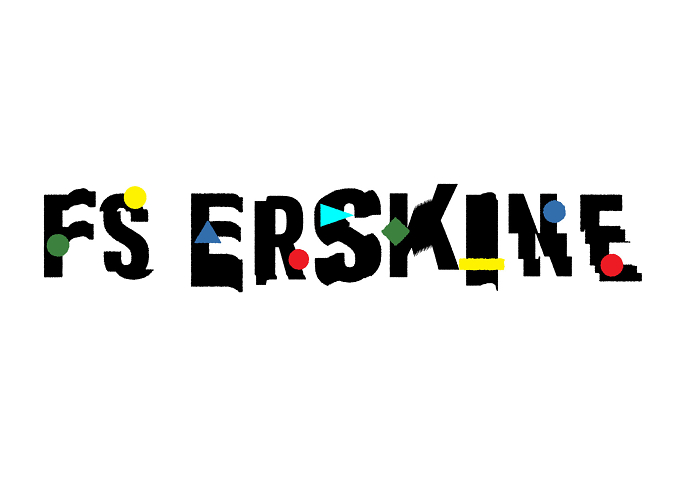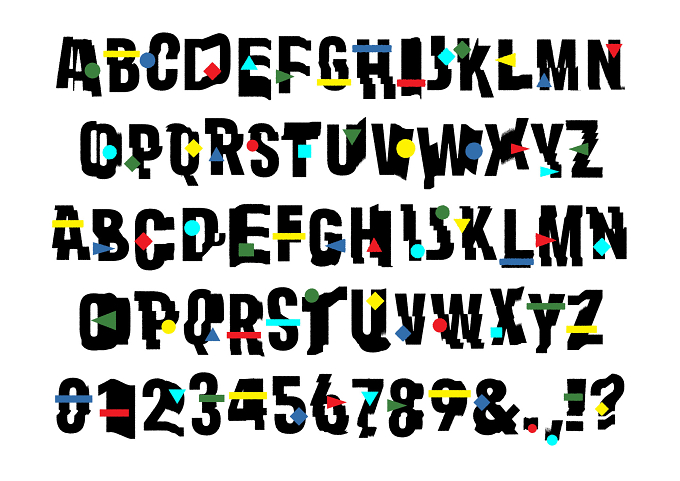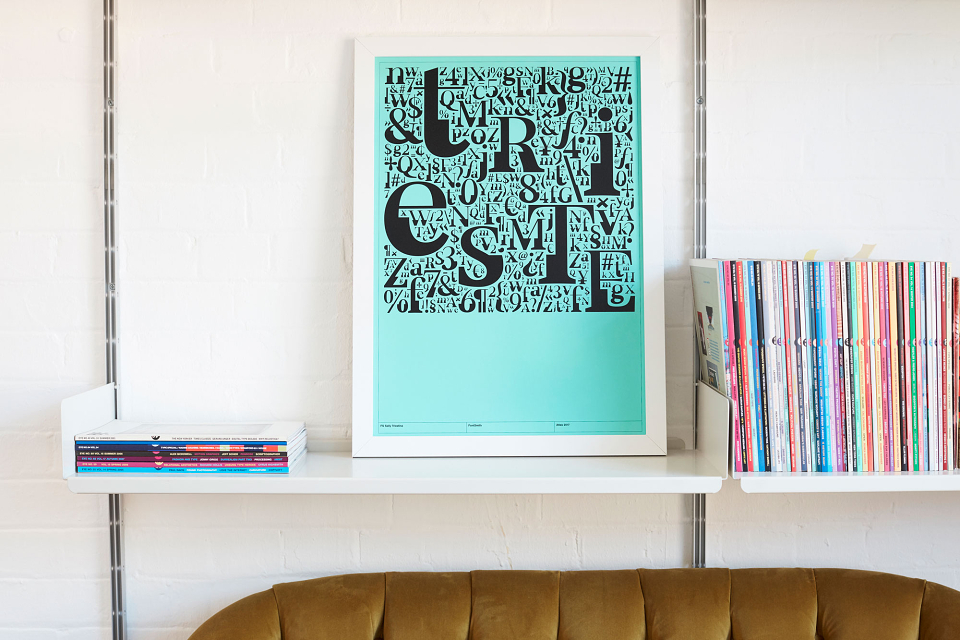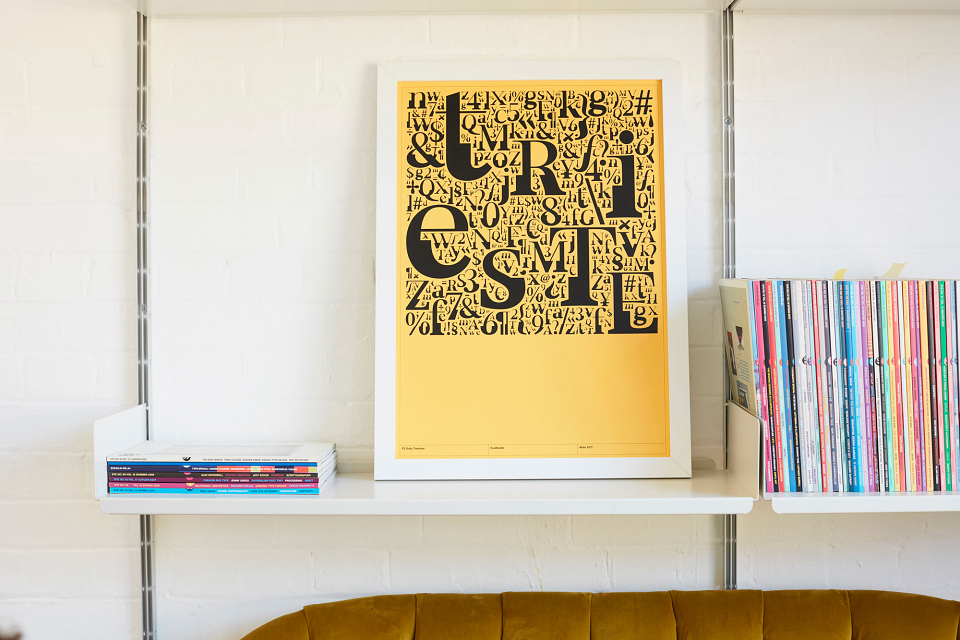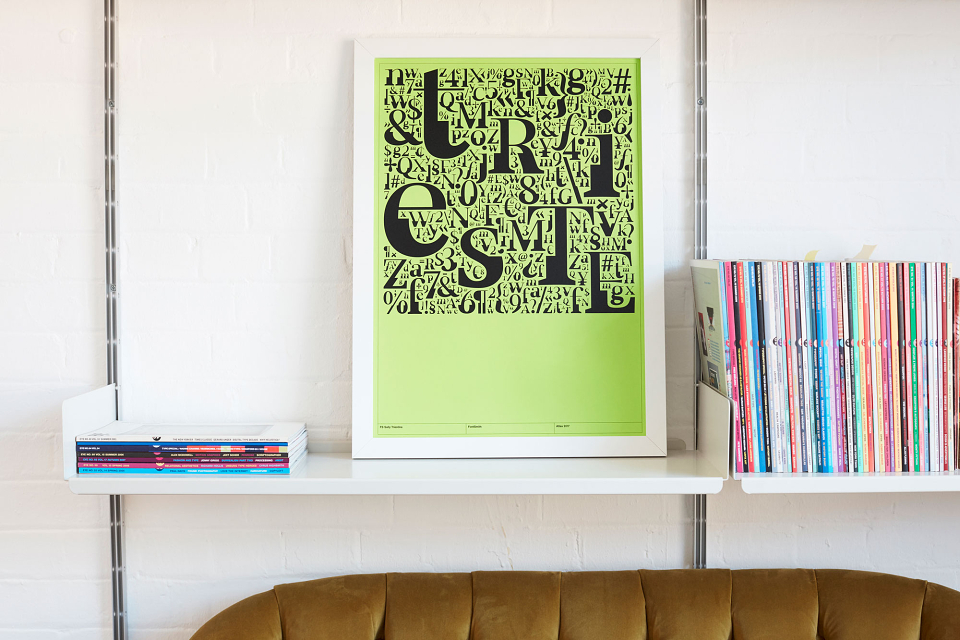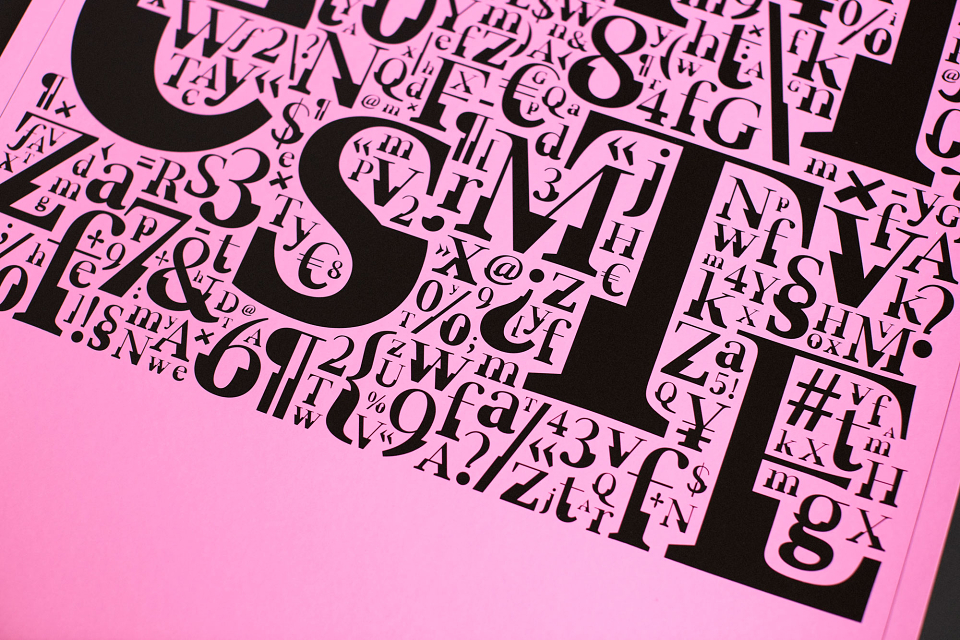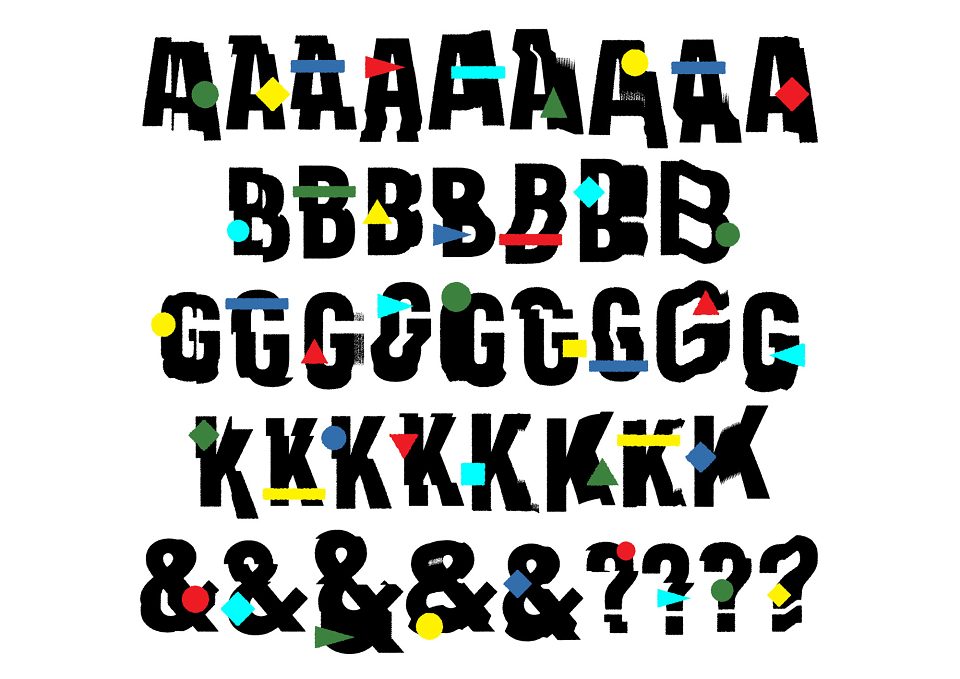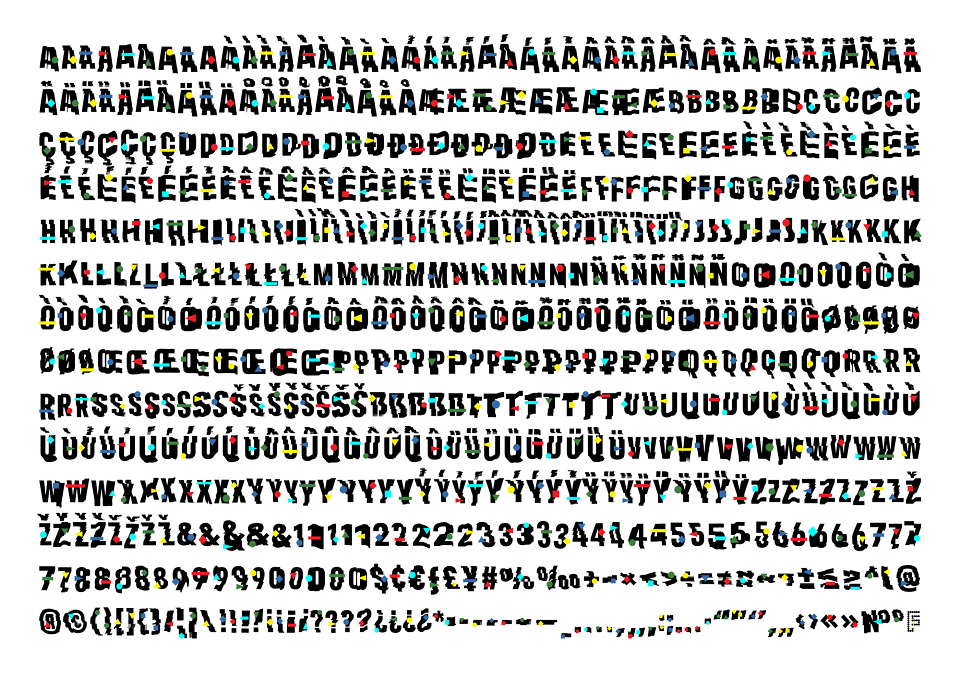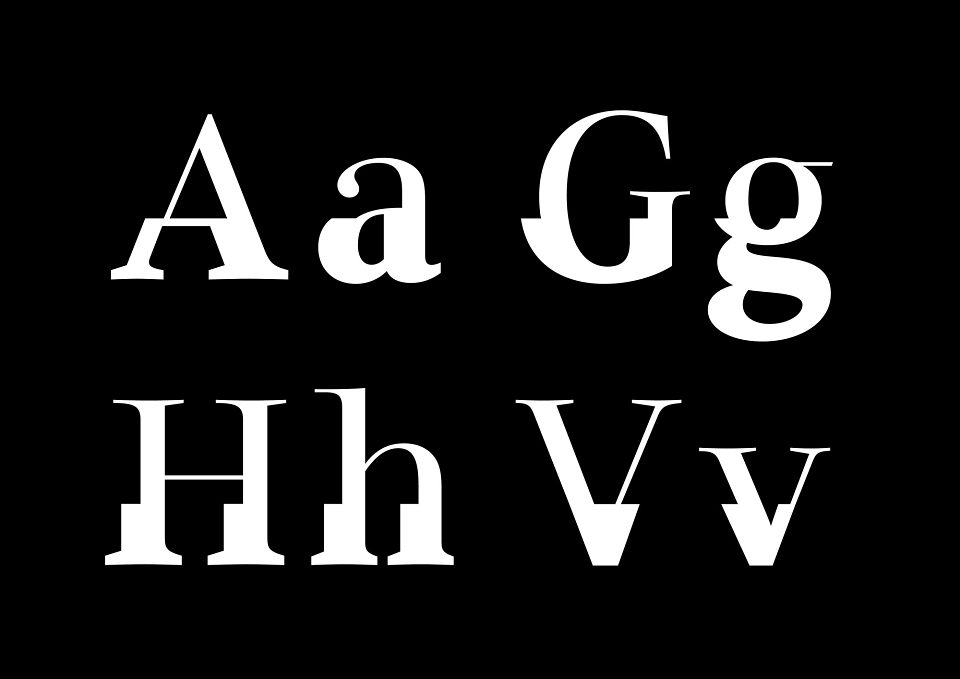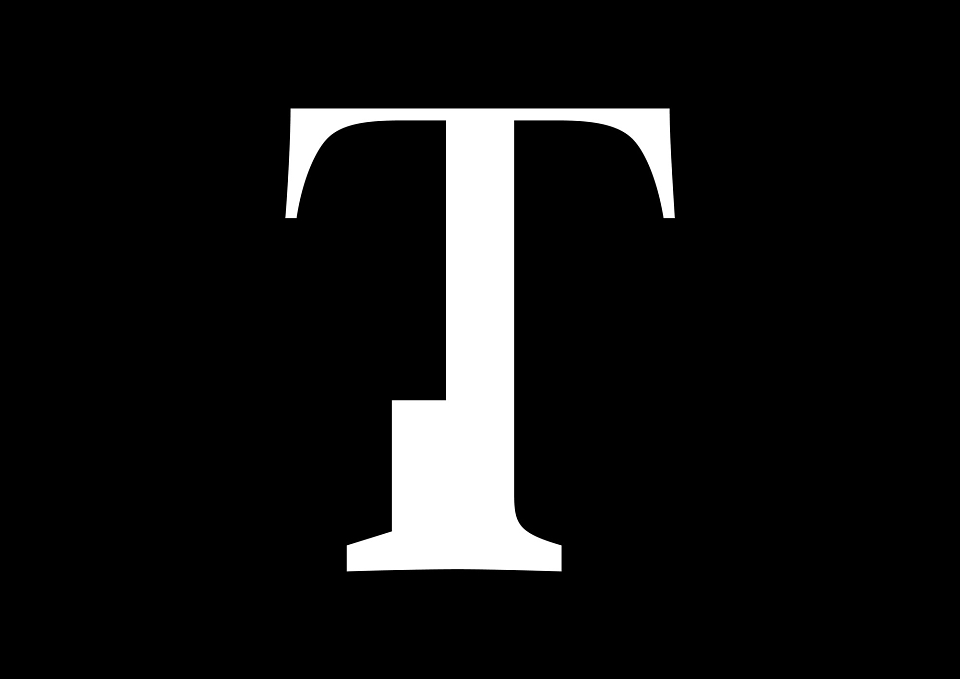
London-based type foundry Fontsmith has launched FS Sally Triestina designed with Atlas design consultancy founder Astrid Stavro, and FS Erskine designed with illustrator Jimmy Turrell. Each of these display typefaces are accompanied with a limited-edition screen-printed poster, and were designed as part of the Local Characters series in partnership with It’s Nice That.
The partnership saw Turrell and Stavro work with Fontsmith to create typefaces inspired by a place of importance to them, and then use those typefaces to design some striking posters. The Local Characters series showcases the effectiveness of the foundry’s Brandfont service, that enables brands to create exclusively licensed typefaces.
FS Sally Triestina, by Astrid Stavro
Since she was tiny, Astrid Stavro has moved across the world, living in many different cities. For this project, she chose to turn to Trieste in Italy for inspiration thanks to its multicultural nature. ‘If you walk around the city of Trieste, you’ll notice it’s full of contrasts,’ she says.
The idea behind the typeface was to showcase the split personality of the city, and the multifaceted nature of her own personality. Stavro also wanted to represent the wooden and metal blocks of type from a family printing business which she remembered from her childhood. She took Fontsmith’s existing typeface FS Sally as a base, modified its regular weight and then spliced it with the bold version around the midline.
FS Sally Triestina is now available to buy and each purchase comes with a beautiful limited-edition, screen-printed poster designed by Stavro. The typeface won Platinum in the Graphis Typeface Design competition before its release. ‘We had no idea that the project would become so successful,’ Astrid told It’s Nice That. ‘In fact, for such an experimental project I find it quite surprising. It is the first highly experimental typeface that I ever conceptualised, and working with Fontsmith to make it happen (and now commercialised) kind of blows my mind. It is a project close to my heart for obvious reasons: a homage to Trieste, to my legacy and multicultural background. The fact that people will now be able to use the typeface for their own projects makes me very happy.’
FS Erskine, by Jimmy Turrell
Illustrator Jimmy Turrell looked to his hometown of Newcastle for his designs, specifically to the Byker Wall council estate where he grew up. Designed by architect Ralph Erskine, the development was built from 1969-1982 and contrasted with the grey, brutalist architecture of the time with its primary colours and geometric shapes. It was Erskine’s progressive, socially minded ethos — and his rejection of the dominant architectural model — that directly informed Turrell’s playful, colourful designs for FS Erskine.
Turrell’s typeface uses all capitals and boasts at least five different designs for each letterform, which are randomised. The characters form the first layer and can be used on their own, or with a second layer of geometric shapes overlaid. Texture added to the characters makes them look like they were cut or torn from paper, rather than digitally drawn, and gives a handmade feel.
Each purchase of FS Erskine comes with a limited-edition screen-printed poster designed by Turrell. The poster represents the Byker Wall, while showing a full character set of the typeface. Jimmy told It’s Nice That that the idea behind the poster was to capture ‘the spirit of the Byker Wall in one single image. It seemed only natural that the font itself should act as the very building blocks of that structure,’ particularly the iconic Tom Collins House, ‘probably the most famous part of the Byker Wall.’
Anna Kulachek’s Moscow-inspired poster
A third designer, Anna Kulachek, used Fontsmith’s existing typeface FS Dillon to create a striking, moving typographic poster reflecting the Russian city of Moscow, a place very close to her heart and that she describes as ‘bold, always busy and always bright.’ The energy of her design hints at Moscow’s architecture and traffic, and uses a colour palette informed by Russia’s representative colours, red and blue. Kulachek chose FS Dillon for its honest and straightforward personality, like the people of Russia: ‘Everything [in Moscow] is bold, the buildings, Russian people in particular, they are really direct,’ she says. ‘This font is a lot closer to the Russian direction and dialect, their honest and straightforward personality.’
For the layout, Kulachek draws influence from housing estates on the outskirts of the city, and a sense of mutability that comes with living in Russia: ‘You can never be sure… you can have a good job, but the next minute the Ruble costs nothing. You go to bed rich but you wake up poor.’ Anna’s poster is also available to buy now in the Fontsmith Shop.
Fontsmith founder Jason Smith says: ‘This started out as an experimental project with It’s Nice That, and we weren’t originally planning to sell the fonts. Giving the designers complete freedom allowed us to create some really out-there designs and the results really did exceed our expectations.
‘We’re releasing them now due to popular demand. Each font comes with a limited edition poster designed by Astrid or Jimmy, who are very sought after and hugely respected designers. The posters are beautiful collector’s items in their own right. I can’t wait to see how the designers will put the fonts to use.’
New Fontsmith typeface collaboration with Astrid Stavro, Jimmy Turrell and Anna Kulachek